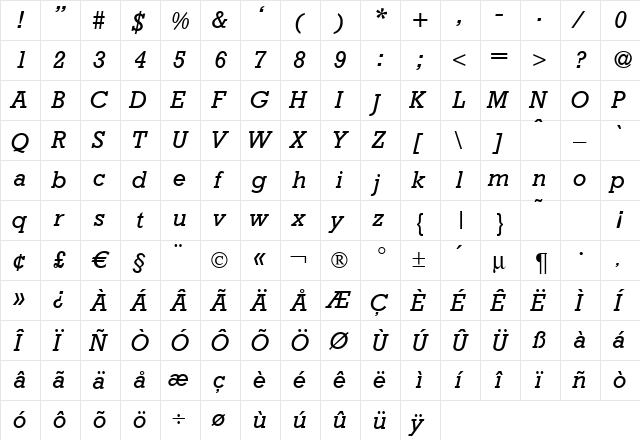
Rambault Italic Font Preview
Rambault Italic
Rambault Italic Font Details
Design Context for Rambault Typeface
Rambault takes a measured approach to typography — its balanced proportions and neutral character make it a reliable workhorse for both digital and print work. The dynamic lean of this cut emphasises speed and emphasis in any layout.